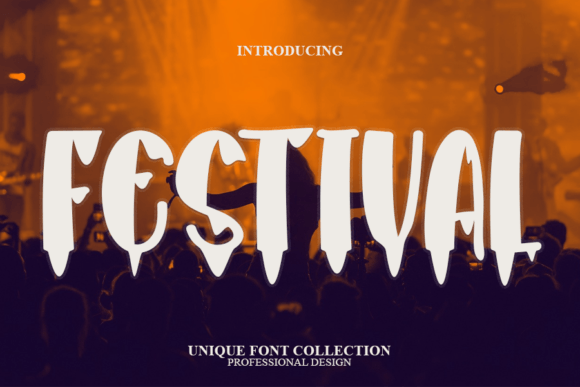
Festival: The Modern Display Font for Small Business Branding
I remember the afternoon I realized my candle business looked disjointed. I had spent hours designing labels, but when I printed them out, the text felt flat and generic. My social media graphics were a different story, yet they didn't match the warmth of the product packaging. That was the moment I decided to stop using standard system fonts and look for something that could tie everything together. I needed a Festival style typeface that could bridge the gap between digital ads and physical products. After testing dozens of options, I found that this specific Display font is exactly what small businesses need to look polished without hiring an expensive design agency.
Festival for Product Labels and Packaging Design
When you are creating Festival for product labels, the visual impact needs to happen in seconds. I tested this font on a set of mock-up jars for my own handmade soaps, and the difference was immediate. Unlike narrow or overly decorative typefaces that become unreadable on small surfaces, Festival maintains its character even at smaller sizes. It has a cool, modern display aesthetic that makes your brand feel established and trustworthy right from the first glance.
For businesses selling physical goods, consistency is key. Whether you are printing stickers, tags for a boutique, or boxes for a bakery, this font provides a cohesive identity. I noticed that Festival works exceptionally well as a headline font on packaging because it draws the eye without overwhelming the necessary legal text. By pairing it with a clean sans serif font for ingredients or descriptions, you create a professional hierarchy that guides the customer's eye naturally. This approach transforms a simple jar into a premium product that customers are willing to pay more for.
- Readability: Ensure the font size remains large enough for mobile viewing if your label is also used digitally.
- Contrast: Use Festival in bold weights against light backgrounds to maximize visibility on shelves.
- Versatility: The font adapts well to various materials, from glossy paper to matte cardboard.
Festival for Social Media Graphics and Digital Marketing
Digital platforms move fast, and your content needs to stop the scroll. When updating my Instagram templates, I switched to Festival for all my promotional banners and story highlights. As a Display font designed for attention-grabbing visuals, it brings a sense of energy and modernity that fits perfectly with current design trends. It is not just about making things look "cool"; it is about establishing a recognizable visual voice that your audience associates with your brand immediately.
I used Festival for headlines in my online shop banners and email newsletters, and engagement metrics seemed to improve simply because the text was easier to read and more engaging. For creators who need to produce content quickly, having a reliable Fonts library like this saves hours of tweaking kerning and spacing. It allows you to focus on the message rather than struggling with technical typography issues. Whether you are announcing a sale, sharing a behind-the-scenes look, or promoting a new collection, this font ensures your message stands out in a crowded feed.
- Catchy Headlines: Use Festival to highlight key offers in your newsletter subject lines.
- Event Promotion: Perfect for creating flyers for pop-up shops or local markets.
- Brand Consistency: Keep your visual identity uniform across all digital touchpoints.
Festival for Presentations and Client Proposals
There is a specific anxiety every small business owner feels when preparing a pitch deck or a client presentation. You want to look professional, creative, and confident. I recently updated my service proposals using Festival, and the reaction from potential clients was noticeably positive. They commented on how "fresh" and "modern" the documents looked compared to my previous templates. A Display font like this adds a layer of personality that standard corporate fonts simply cannot achieve.
In the context of presentations, Festival excels at setting the tone. It works beautifully for slide titles, section headers, and emphasis points. It tells the audience that you care about details and have put thought into your brand's image. When combined with elegant serif fonts for body text, it creates a sophisticated balance that is easy on the eyes while remaining visually striking. This combination suggests that your business is both creative and grounded, which is a powerful message for any entrepreneur looking to secure contracts or partnerships.
Festival for Crafts and Greeting Cards
If you are a crafter or sell handmade greeting cards, finding the right typography can be the difference between a craft fair stall and a sold-out inventory. Festival is a cool and modern display font that captures the essence of contemporary crafting without feeling dated. I used it for a series of holiday cards and wedding invitations, and the results were stunning. The font's unique character adds a personal touch that feels intentional and high-end.
For crafters, the ability to use Festival across different mediums is a game-changer. You can print it on cardstock for physical cards, use it on digital invitations sent via email, or even incorporate it into video tutorials. Its versatility means you don't need to switch fonts depending on the project; one Fonts family can handle your entire branding ecosystem. This consistency helps build a loyal following because customers recognize your work instantly, whether they see it on a tag, a website, or a piece of mail.
Moving forward with my business strategy, I am confident that Festival will remain a staple in my design toolkit. It solves the common problem of needing a font that is both stylish and functional. For any business owner looking to elevate their brand identity, this is a smart investment. It bridges the gap between creativity and commerce, ensuring that your products and messages are presented in the best possible light. If you want your brand to look memorable and professional, exploring Festival is a step in the right direction.